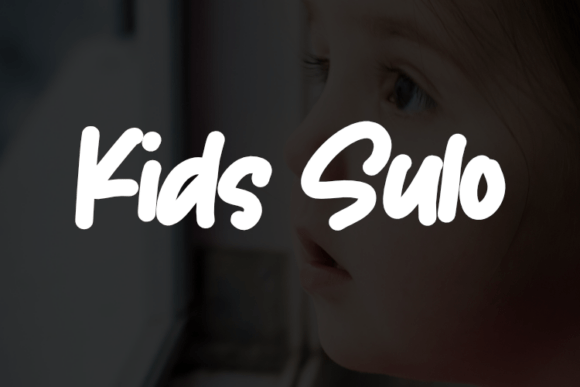
Unveiling Kids Sulo: The Ultimate Font for Vibrant Designs
In the realm of typography, a font can make or break the visual appeal of a design. For those seeking a playful, yet versatile typeface, Kids Sulo emerges as a beacon of creativity. This comprehensive guide delves into the world of Kids Sulo, exploring its features, benefits, and applications in various design projects.
What is Kids Sulo Font?
Kids Sulo is a vibrant and versatile typeface designed to add a playful touch to various design projects. Its unique charm and character make it an ideal choice for clothing designs, t-shirts, and other product creations. Whether you’re a seasoned designer or a beginner, Kids Sulo offers a wide range of creative possibilities.
Key Features of Kids Sulo Font
- Playful and Whimsical Design: Kids Sulo boasts a unique, hand-crafted design that exudes a sense of playfulness and fun.
- Versatility: This font is perfect for a wide range of design projects, from clothing and accessories to digital products and marketing materials.
Design Applications of Kids Sulo Font
Kids Sulo is a fit-all solution for any design initiative. Its versatility and playful allure make it an excellent choice for:
- Clothing Designs: Add a touch of whimsy to your clothing designs, making them stand out in a crowded market.
- T-Shirts and Apparel: Create eye-catching t-shirts and apparel that appeal to both kids and adults.
- Digital Products: Use Kids Sulo to create visually striking digital products, such as e-books, posters, and social media graphics.
- Marketing Materials: Incorporate Kids Sulo into your marketing materials, such as brochures, flyers, and business cards, to add a playful touch.
Benefits of Using Kids Sulo Font
The benefits of using Kids Sulo font are numerous. Some of the most significant advantages include:
- Unique and Playful Design: Kids Sulo offers a one-of-a-kind design that sets your work apart from others.
- Time-Saving: With Kids Sulo, you can create visually striking designs quickly and efficiently.
Tips and Tricks for Using Kids Sulo Font
To get the most out of Kids Sulo, consider the following tips and tricks:
- Experiment with Colors: Kids Sulo looks great in a variety of colors. Experiment with different color schemes to find the perfect fit for your design.
- Mix and Match Fonts: Combine Kids Sulo with other fonts to create a unique and visually appealing design.
- Pay Attention to Kerning: Make sure to adjust the kerning to ensure that your text looks professional and polished.
- Use Kids Sulo for Headings and Titles: Kids Sulo is perfect for headings and titles. Use it to add a playful touch to your design.
In conclusion, Kids Sulo font is a versatile and vibrant typeface that offers a wide range of creative possibilities. Its playful allure and cross-platform compatibility make it an excellent choice for various design projects. Whether you’re a seasoned designer or a beginner, Kids Sulo is sure to transform your works into visually striking pieces that resonate with both the young and the young at heart.